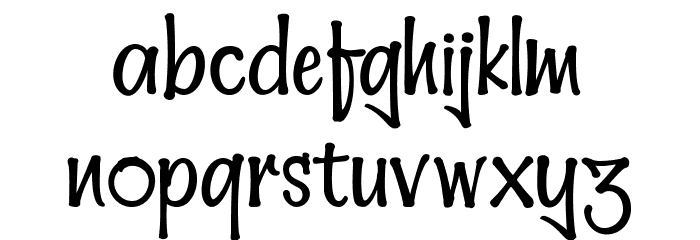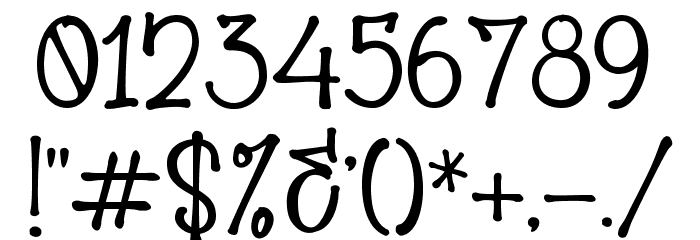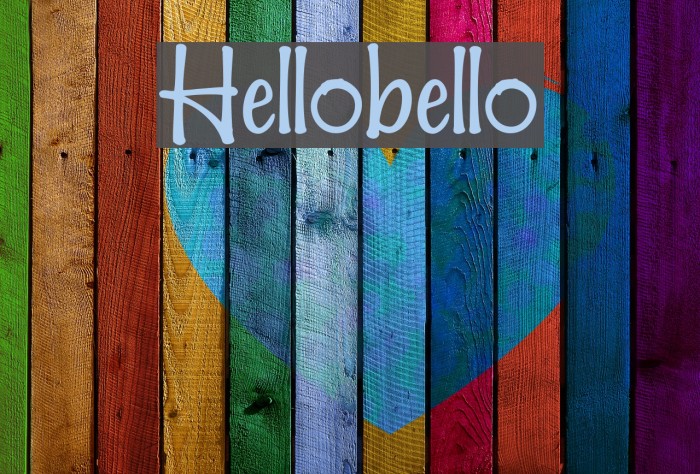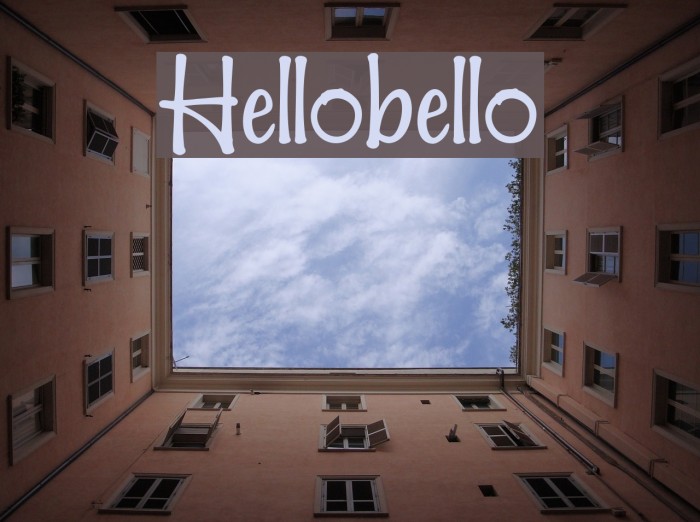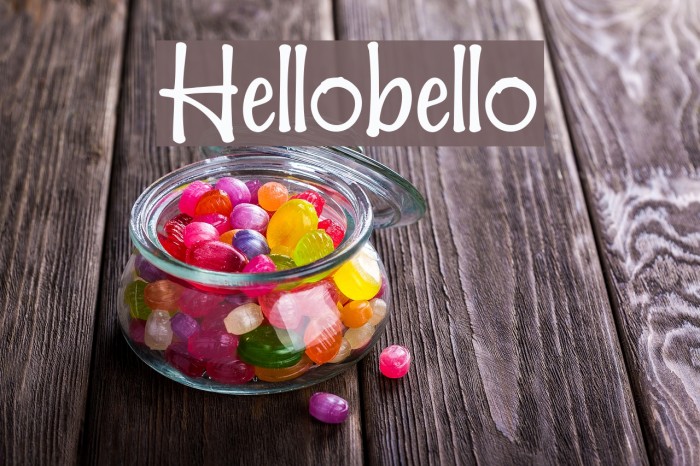
Hellobello Font
This font exhibits a playful and whimsical style, characterized by its irregular and hand-drawn appearance. The letters have a casual, almost cartoonish quality, with varying stroke thicknesses that add to its charm. The uppercase letters are bold and prominent, while the lowercase letters maintain a consistent flow, enhancing readability. Numbers and special characters follow the same playful design, making them suitable for creative and informal contexts. The overall look is lively and engaging, perfect for projects that aim to capture attention with a fun and informal tone.
A playful, hand-drawn font with a whimsical and casual style.
- Proposed Projects: Ideal for children's books, greeting cards, playful branding, and informal invitations.
- Use Case: Headlines, Logos, Informal Text